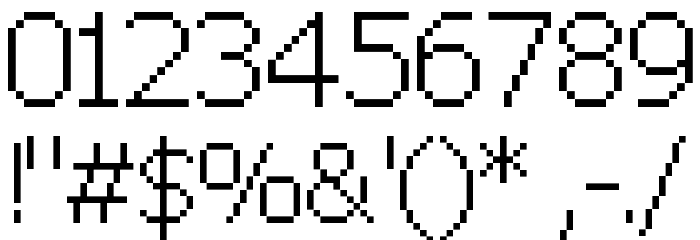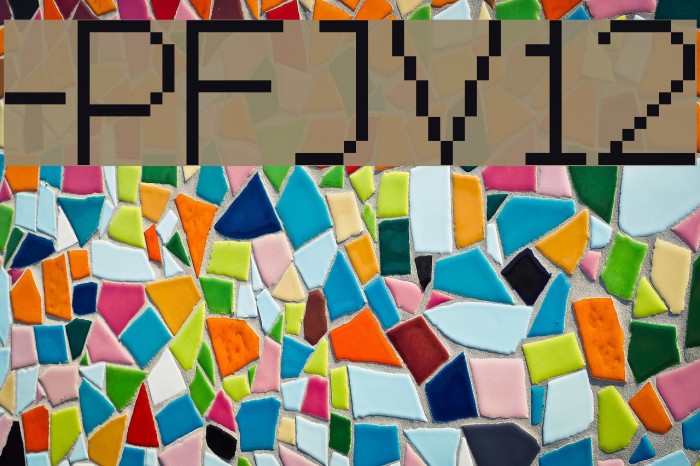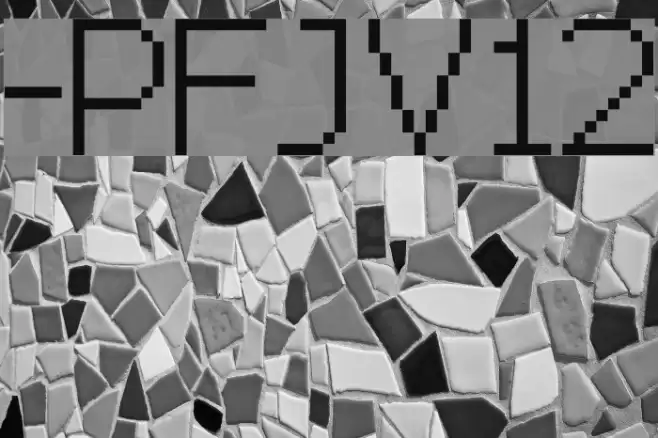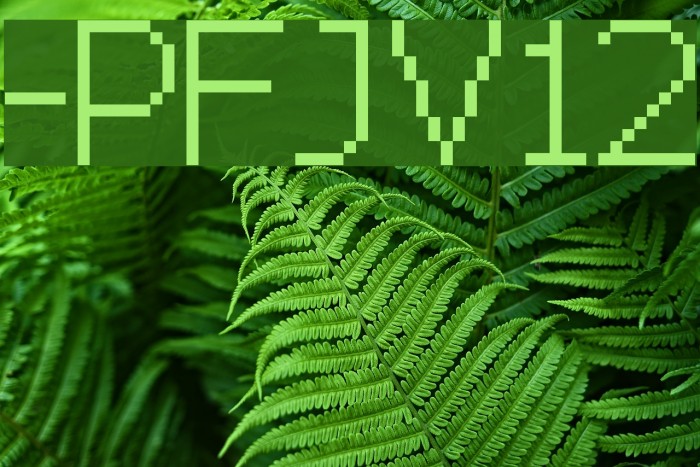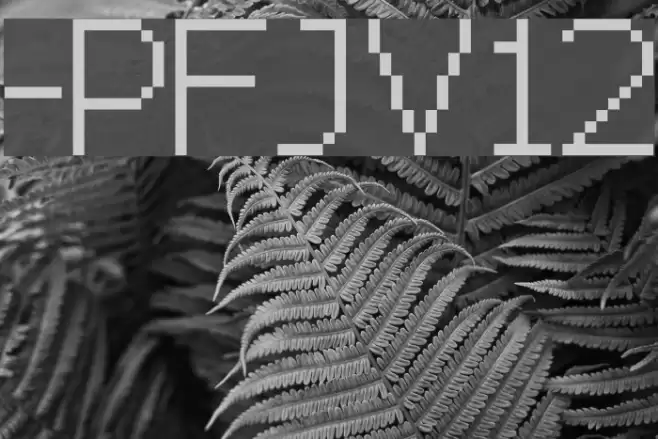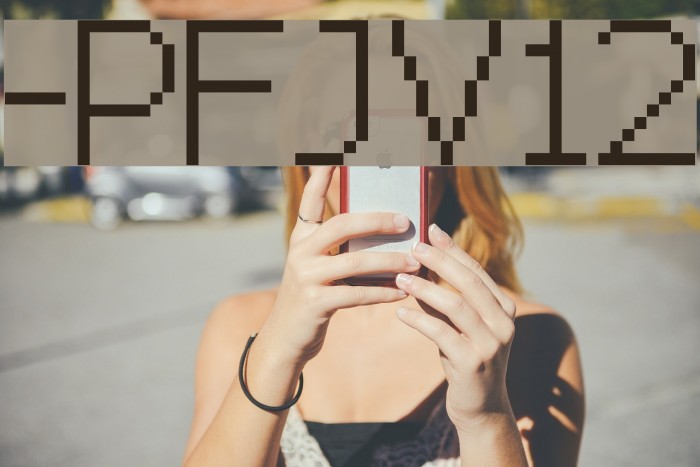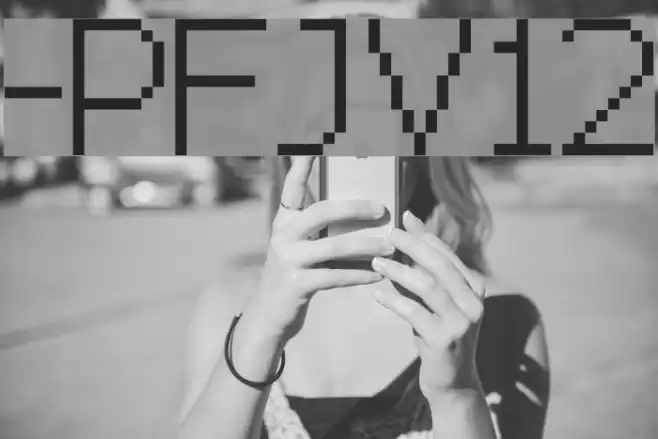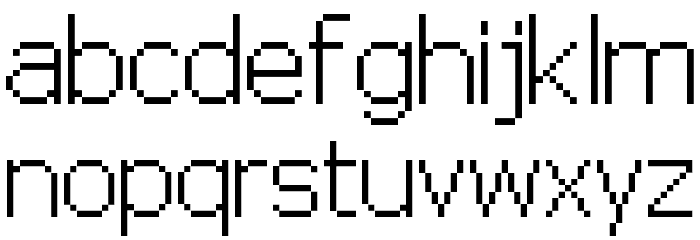
pix-PixelFJVerdana12pt Font
pix-PixelFJVerdana12pt Description
This font features a pixelated design, reminiscent of early digital displays and retro video games. Each character is constructed with a grid-like precision, giving it a distinctly digital and nostalgic feel. The uppercase and lowercase letters maintain a consistent height, enhancing readability while preserving the pixel art aesthetic. Numbers and special characters are crafted with the same attention to detail, ensuring uniformity across all glyphs. The font's blocky appearance makes it ideal for projects that aim to evoke a sense of nostalgia or a retro-futuristic vibe.
A pixelated, retro-style font with a digital display aesthetic from Pixel fonts.
- Proposed Projects: Ideal for retro video games, digital art projects, and nostalgic branding.
- Overall Style: Retro, Digital
- Use Case: Headlines, Logos, Digital Displays